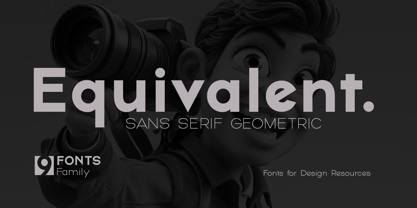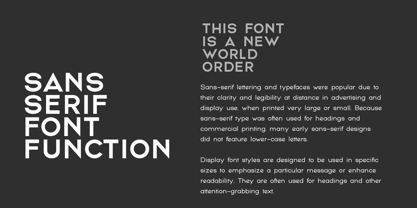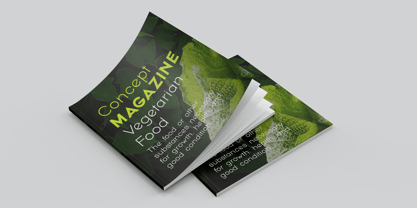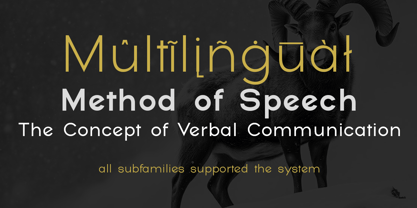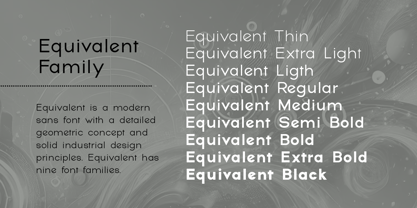
Equivalent
by Groen Studio
The Equivalent Font Family was designed by Roiyani Teungku and published by Groen Studio. Equivalent contains 9 styles and family package options. More about this family
Equivalent is a modern sans serif font with a detailed geometric concept and solid industrial design principles. Equivalent has nine font families. so, Equivalent is a variation font with a normal style, comes in 9 straight weights.
Equivalent is Sans-serif lettering and typefaces are popular due to their clarity and legibility at distance in advertising and display use, both when printed very large or small. Because sans-serif typefaces are often used for headings and commercial printing.